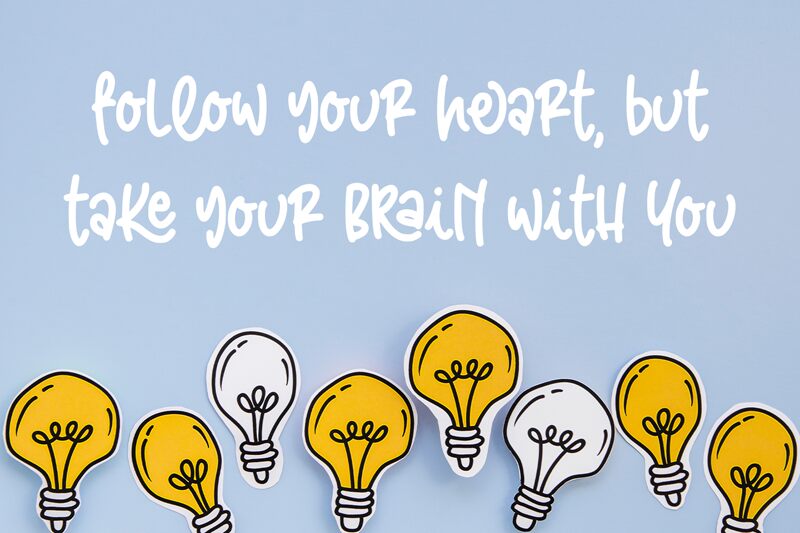
Sweet Taro is a casual handwritten font designed by Panggah Laksono at Abo Daniel Studio. This font is perfect for crafting projects that need a personal touch, such as logo designs, invitations, cards and labels. It's also suitable for kids' projects like coloring books and posters as its playful yet sophisticated style adds charm to any project.
Sweet Taro
Panggah Laksono @ Abo Daniel Studio